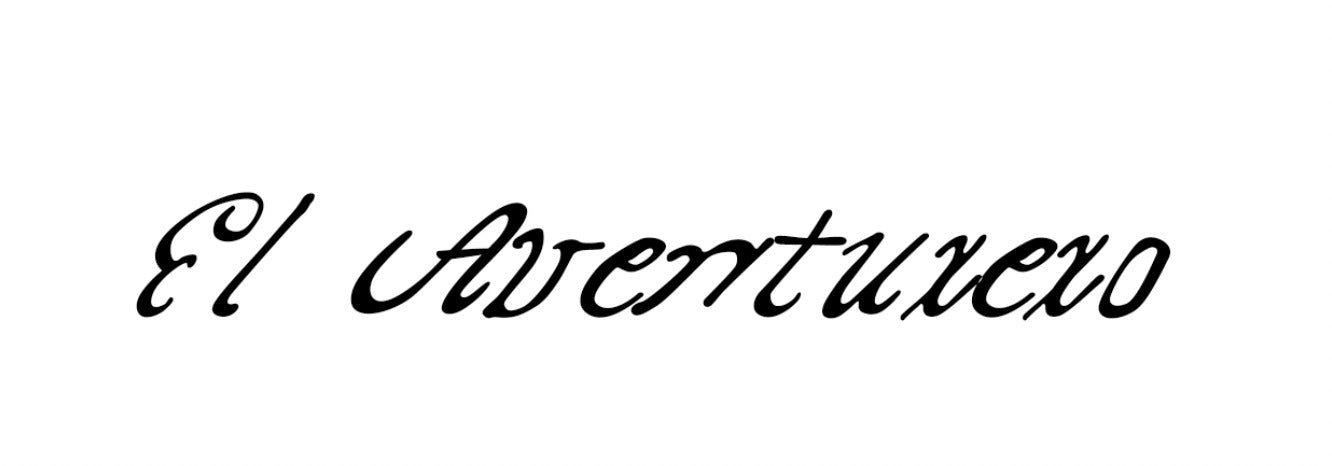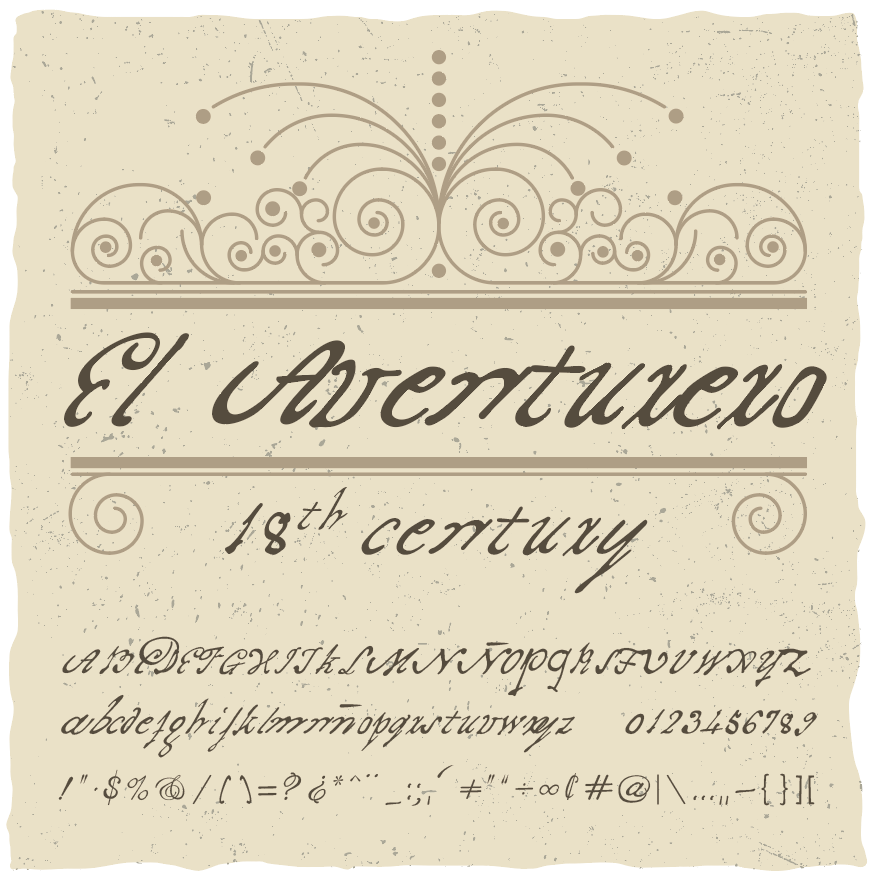
This font is inspired by the remarkable life of William Augustus Bowles, British Loyalist, adventurer, and self-proclaimed Commander in Chief of the Creek nation. A native of Maryland, Bowles joined the Maryland Loyalists Battalion when he was just fourteen years old. A year later, in 1778, the young Loyalist was transferred to West Florida. There, his life of adventure and intrigue began. Within a year, Bowles was dishonorably discharged from British service, accused of insubordination. He then spent the next few years living among the Lower Creek, whom he claimed adopted him.
After the American Revolution, Bowles attempted to place himself as a central intermediary between the British and Creek nations. He launched regular assaults and Spanish Florida, both at land and sea. But his list of enemies grew. In 1803, a group of Upper Creek leaders captured the elusive Aventurero and delivered him to Spanish officials in New Orleans. Bowles was transferred to Cuba where he died two years later.
The letters that make up this font come from documents housed in Spain’s Archivo General de Simancas, which describe Bowles’ efforts to undermine Spanish control of West Florida, as well as the Spanish Crown’s attempt to recruit his services on its behalf.
The shape and size of the letters found in historical documents varied widely. As such, the spacing for these authentically historical fonts also fluctuates from style to style, with many of the letters extending beyond one or two lines. For best results, we recommend double spacing when using these fonts.